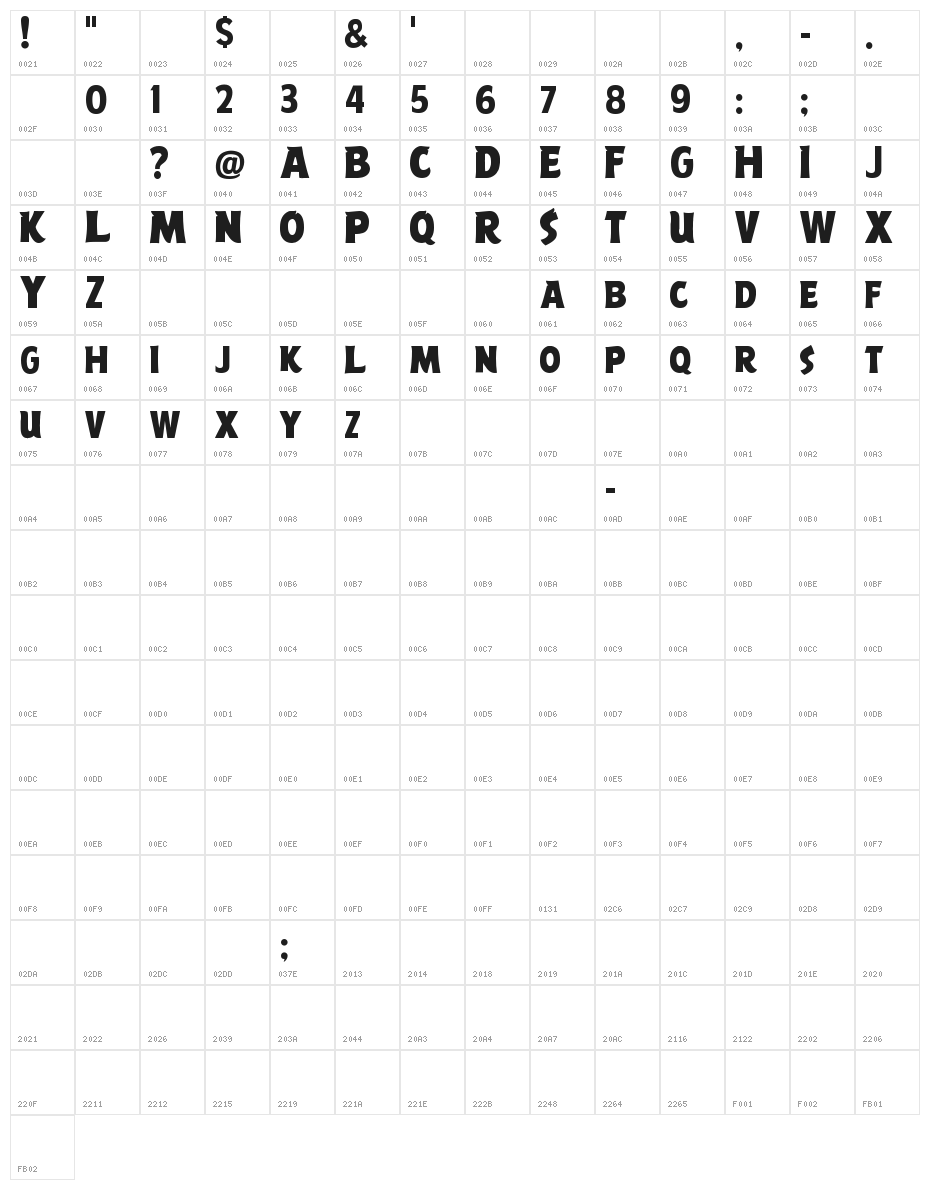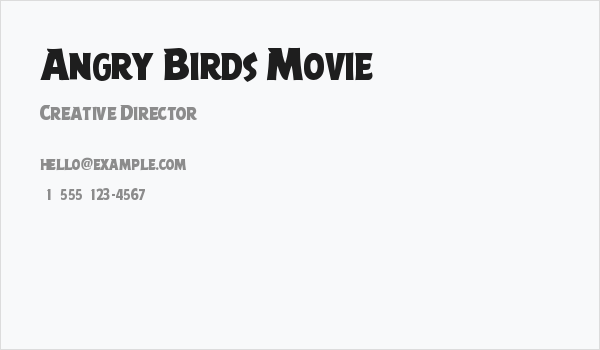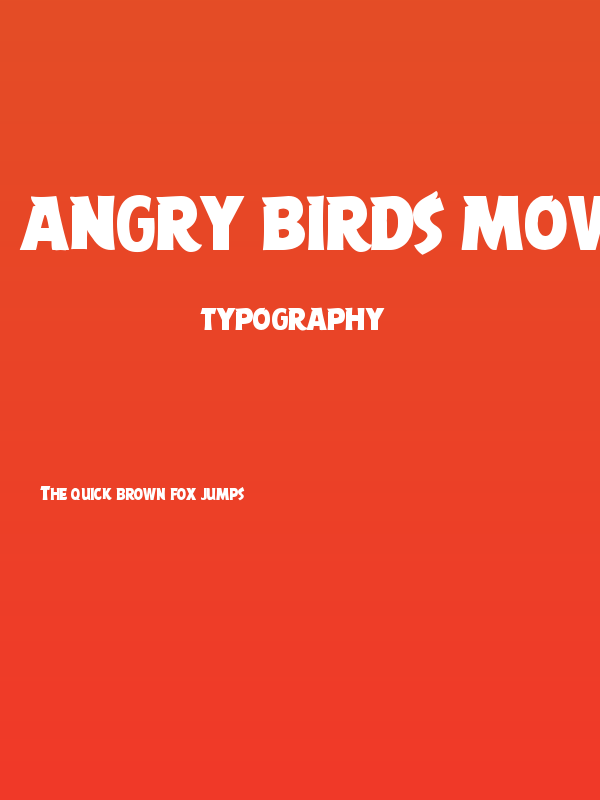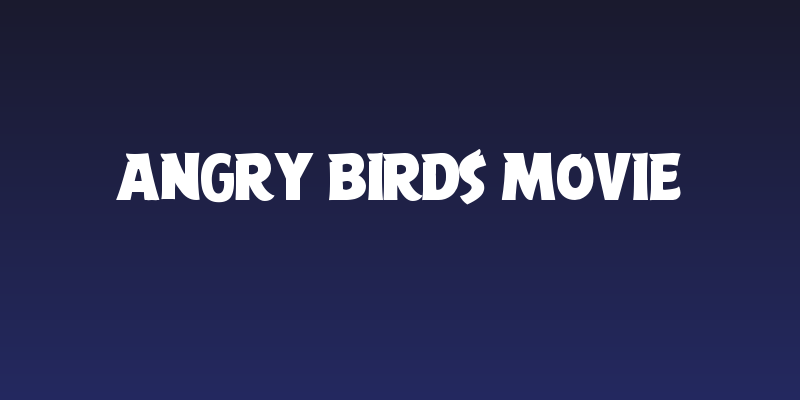
Angry Birds Movie Font
Angry Birds Movie Description
This font features bold, playful characters with a slightly irregular and whimsical design. The letters have a cartoonish style, with thick strokes and a dynamic, energetic feel. The uppercase and lowercase letters maintain a consistent weight, contributing to a cohesive look. The numbers are equally bold and maintain the playful aesthetic. Special characters are included and match the overall style, adding versatility. The font's design is reminiscent of animated movie titles, making it ideal for projects that require a fun and engaging appearance.
| Overall Style | Playful, Cartoonish, Energetic |
| Proposed Projects | Ideal for children's book covers, animated movie titles, playful branding, and game design. |